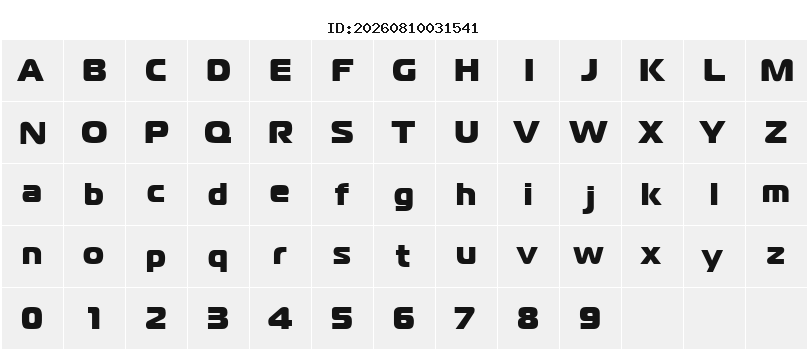
• Font Name: MagistralBlackC
• Full Font Name: PT Magistral Black Cyrillic
• PostScript Name: MagistralBlackC
• Character Count: 224
About MagistralBlackC.ttf
MagistralBlackC.ttf is a modern, elegant sans-serif font designed for ultimate readability and visual harmony. Perfect for branding, headlines, web design, and print materials.